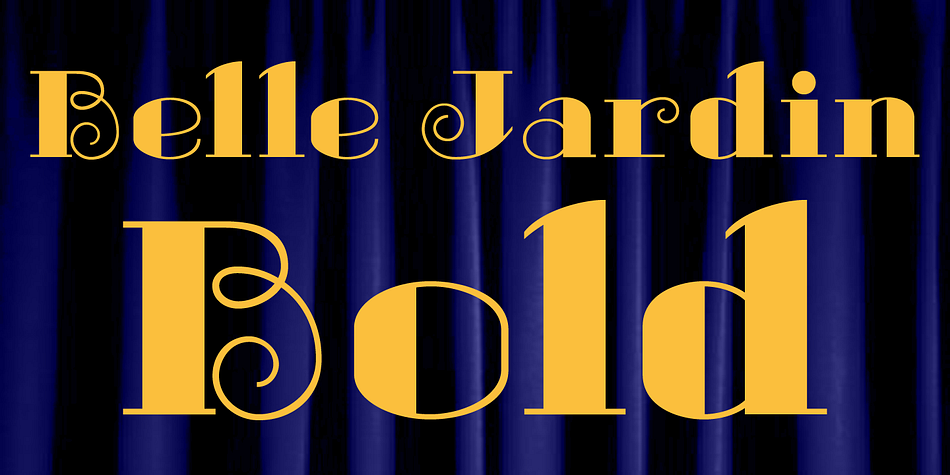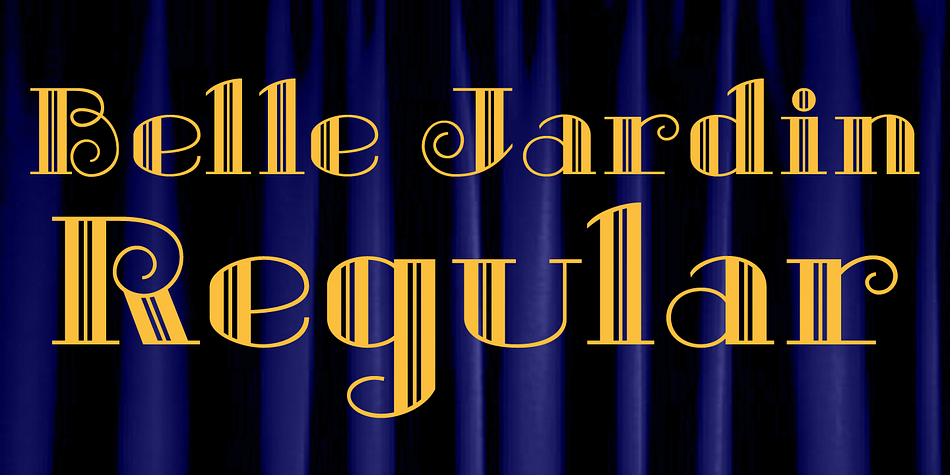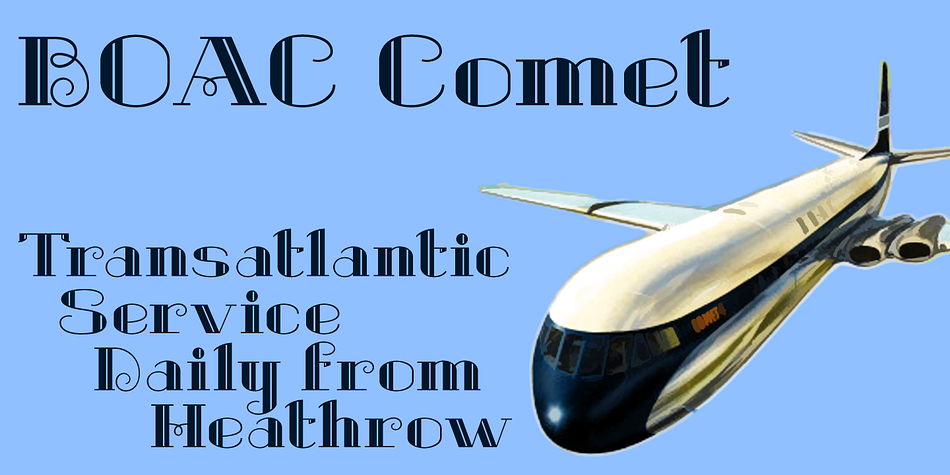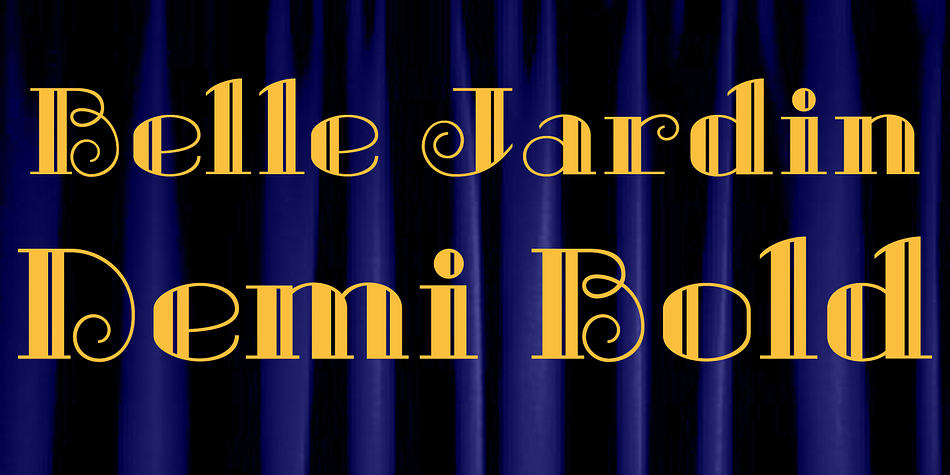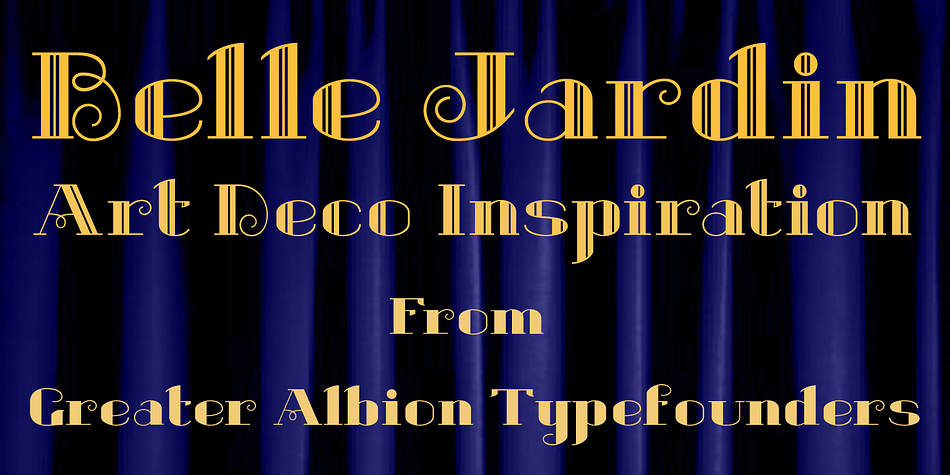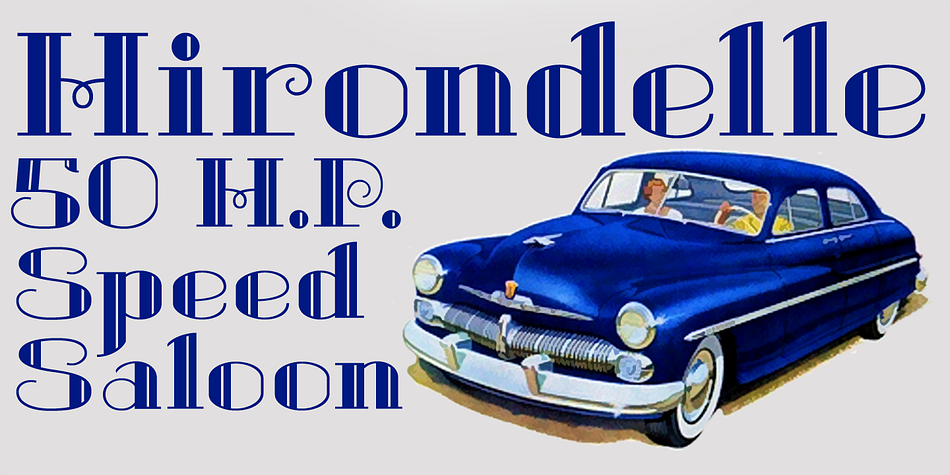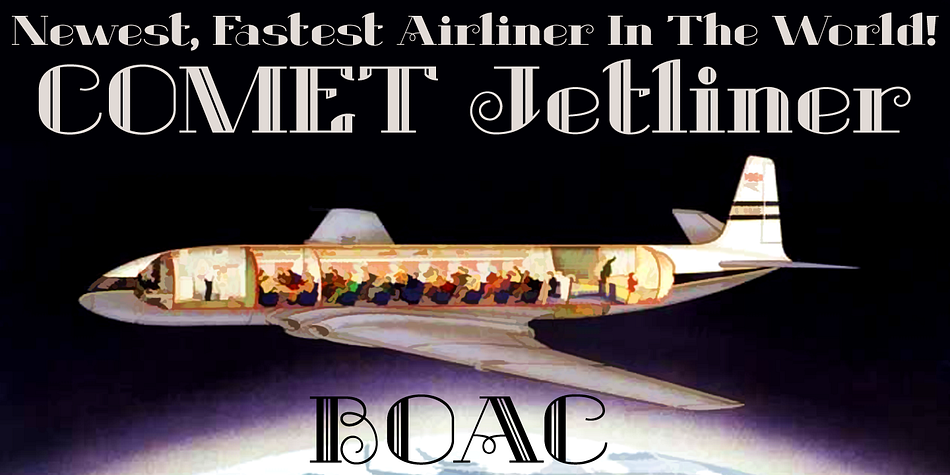
Belle Jardin is a art deco font family. This typeface has three styles and was published by Greater Albion Typefounders.
Belle Jardin is an Art Deco inspired display family of three typefaces, offered in in-line engraved regular and demi bold forms as well as a solid bold form. It offers upper and lower case solid slab-built forms that create an immediate atmosphere of the streamline era of the thirties and are also at home in post-war revival inspired design work. The letterforms are solidly legible and ideal for cover and poster inspired design work.